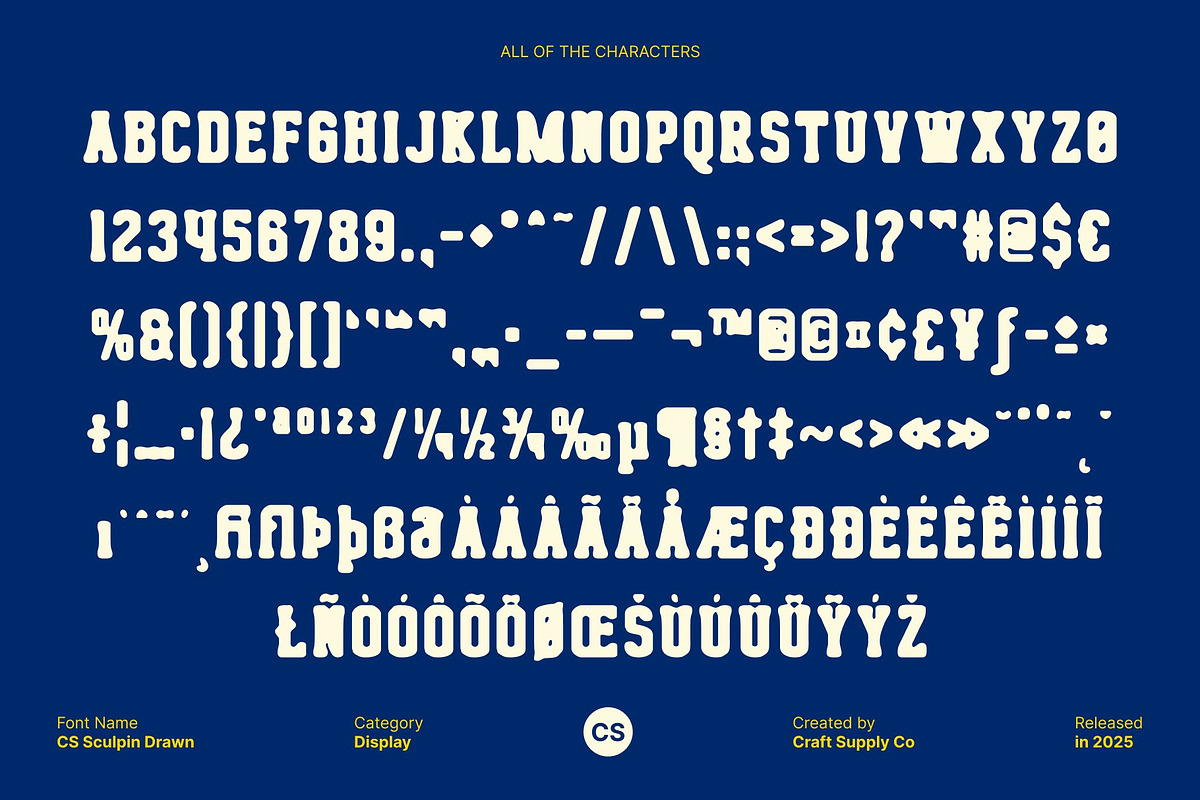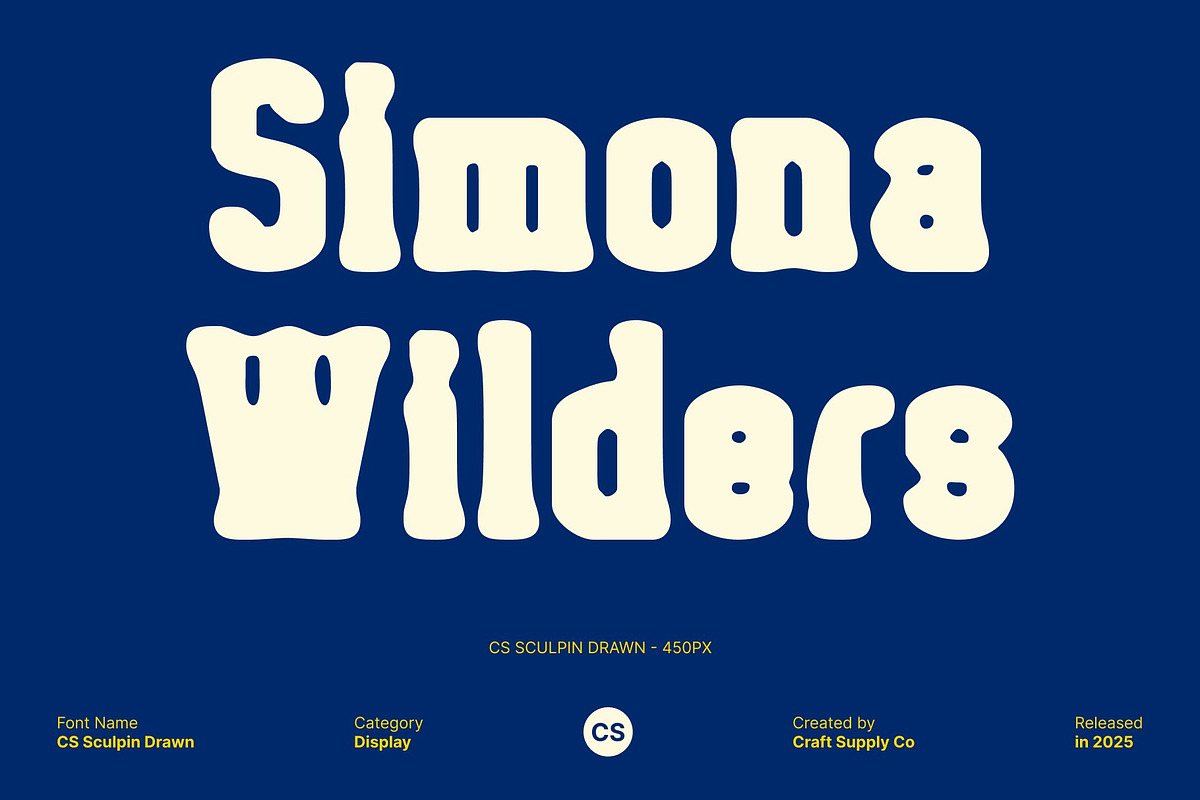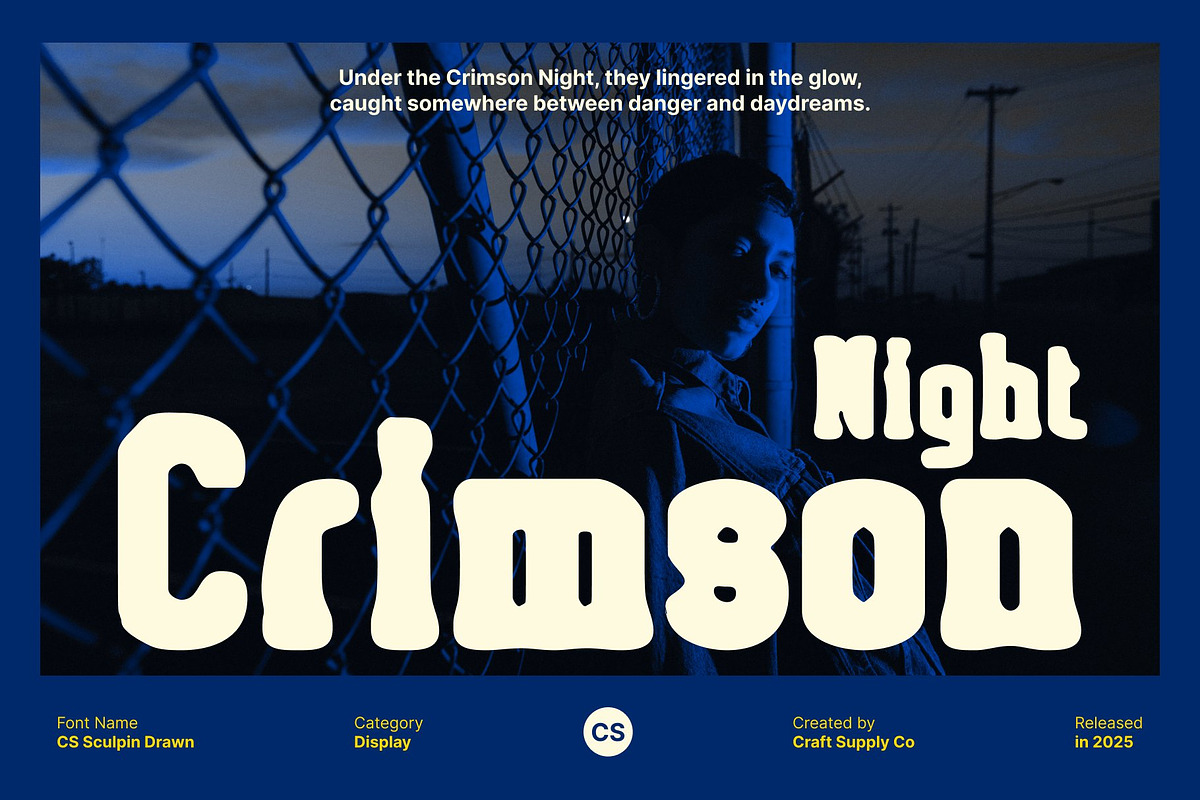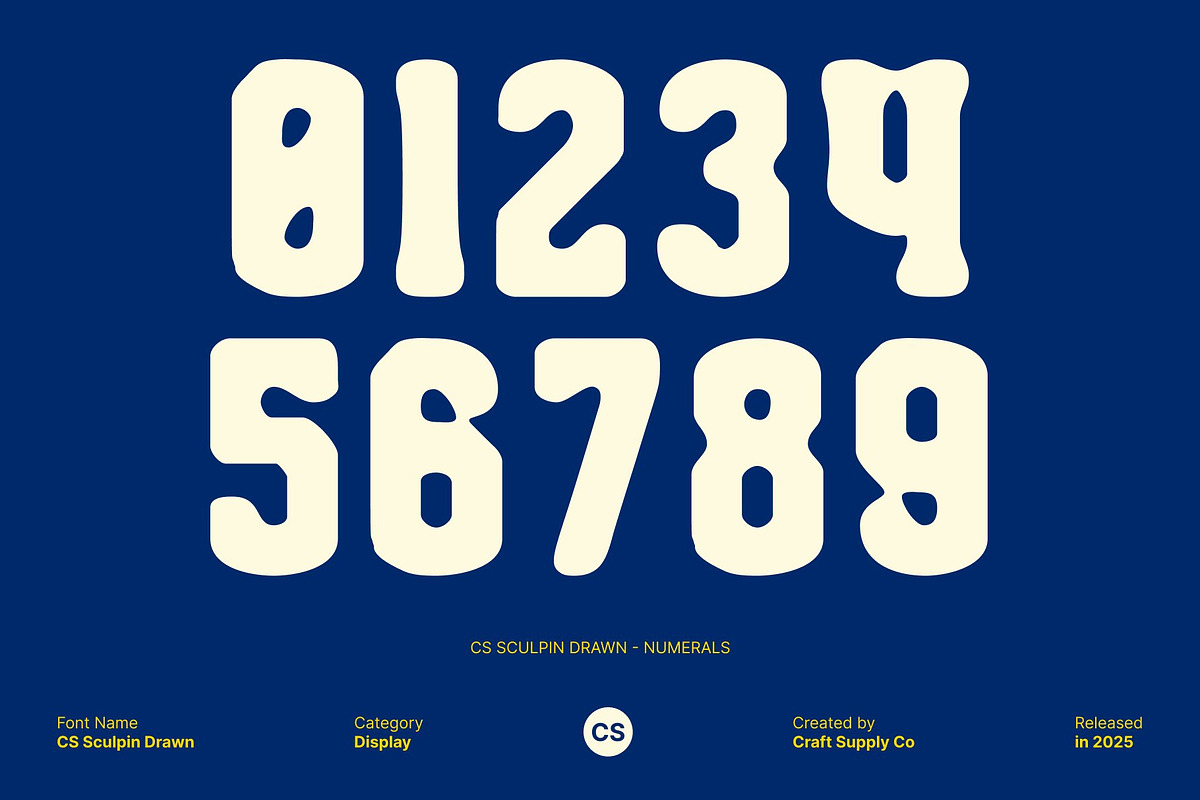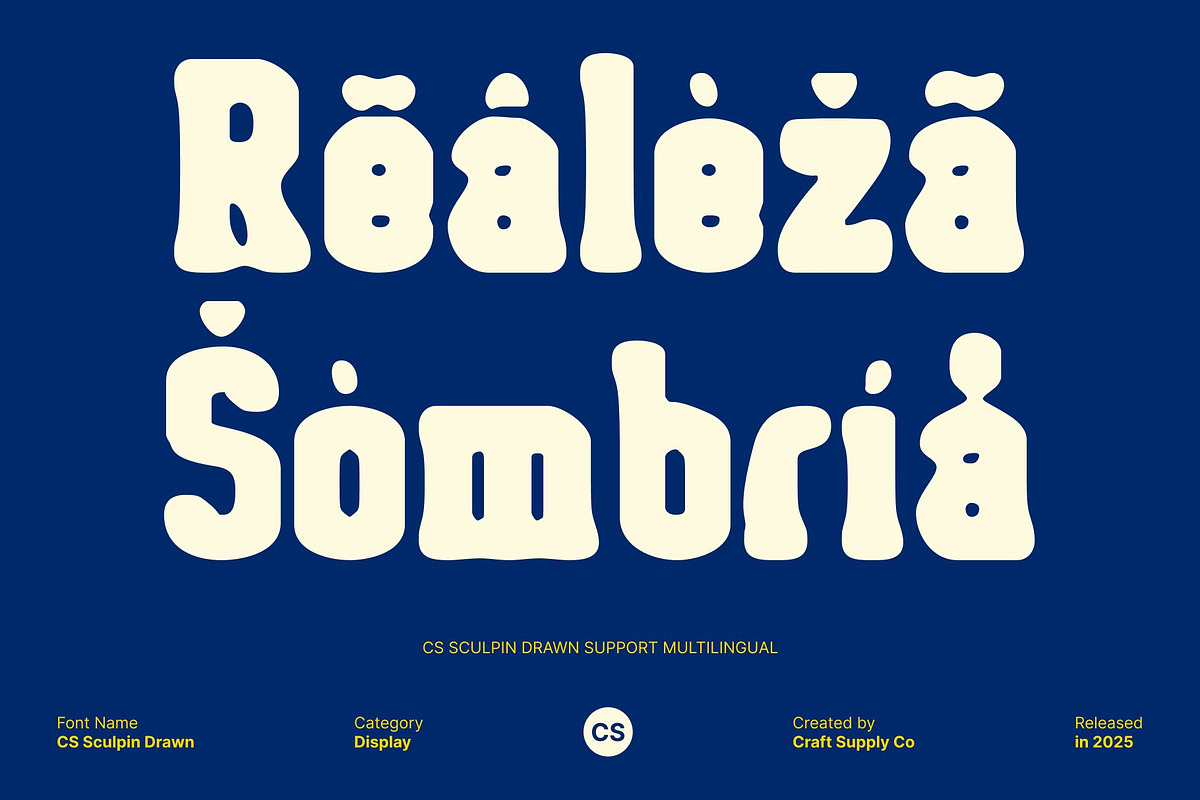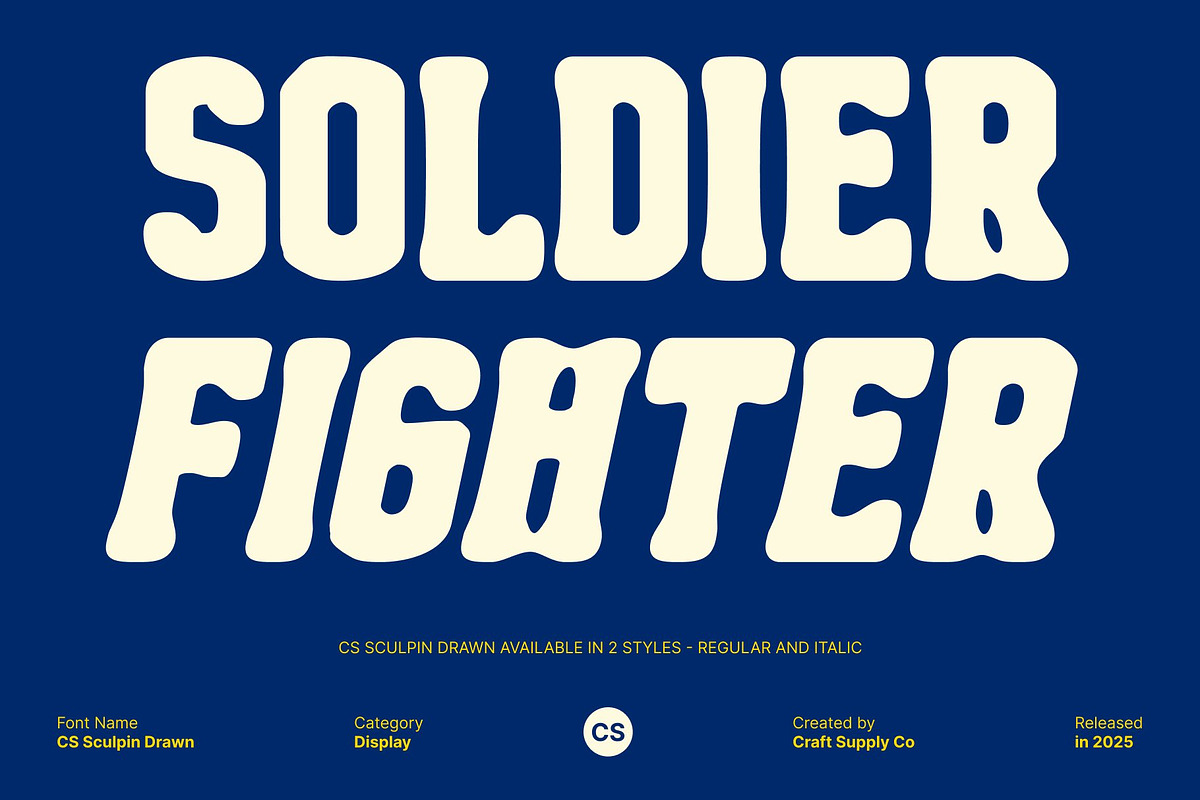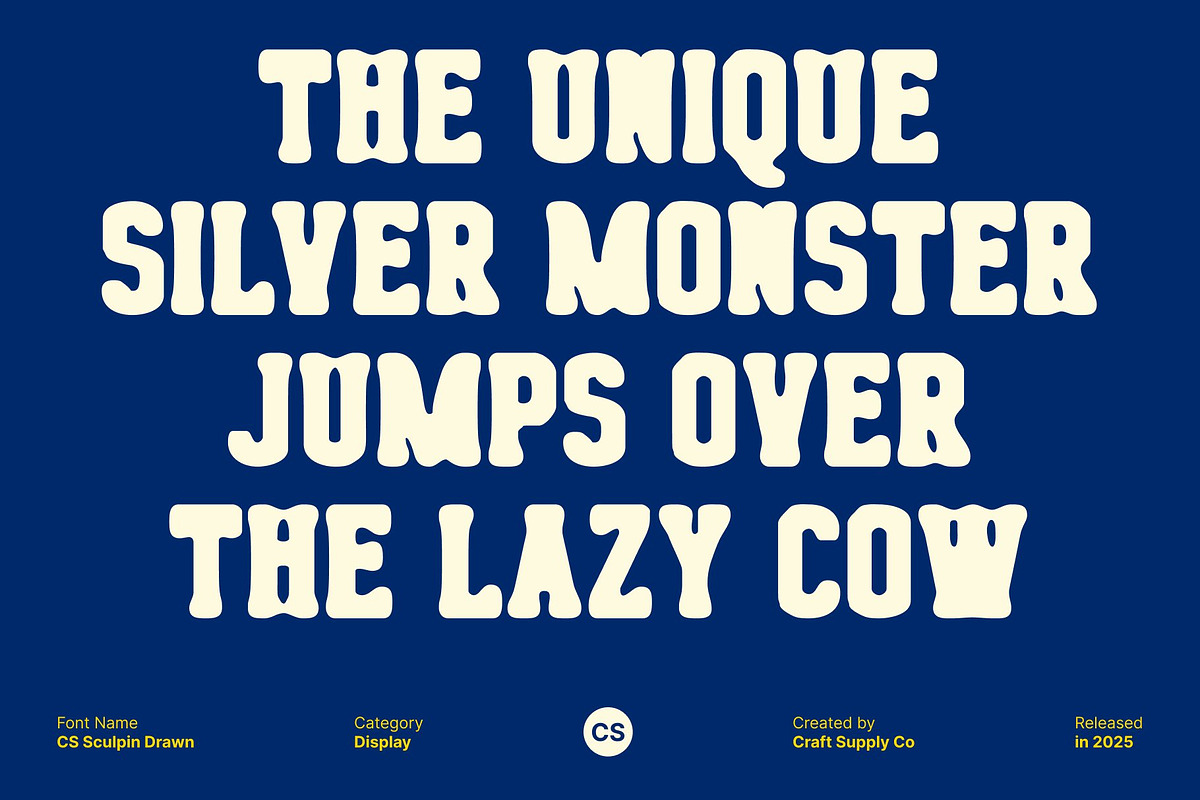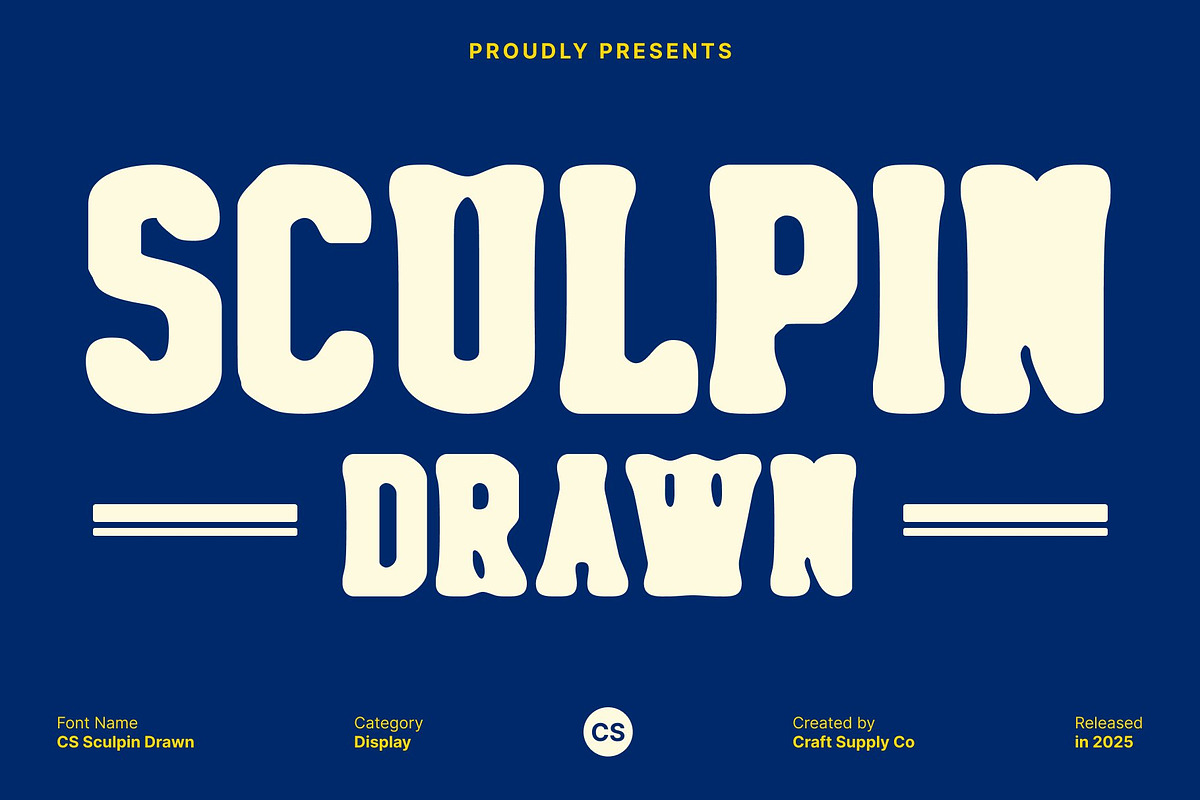
CS Sculpin Drawn
CS Sculpin Drawn – Bold Display Font Built for Impact
Powerful Letterforms That Command Attention This is a bold display font designed to make an immediate and confident statement. Its strong weight and solid structure give every letter a commanding presence, ensuring the message stands out instantly. This font thrives in high-visibility situations, where impact, clarity, and confidence are essential.
Hand-Drawn Effect for Artistic Expression The hand-drawn effect adds an expressive layer that transforms the bold forms into something more personal and artistic. Subtle irregularities and organic strokes introduce movement and emotion, breaking away from rigid digital precision. This drawn texture gives the font a handcrafted soul, allowing it to feel dynamic, creative, and full of character while still maintaining its powerful silhouette.
Designed for Strong Visual Communication This font excels in branding, headlines, posters, and promotional materials where bold communication is key. Its expressive nature helps brands and designers convey personality, confidence, and originality. Whether used in print or digital formats, the font maintains high legibility while delivering a strong visual punch that captures attention instantly.
Perfect for Bold, Creative, and Memorable Designs From modern branding to striking poster art, this font offers the perfect balance between impact and artistry. It empowers designers to create visuals that feel strong yet expressive, bold yet human. This font turns words into statements, making every design feel confident, creative, and unforgettable.